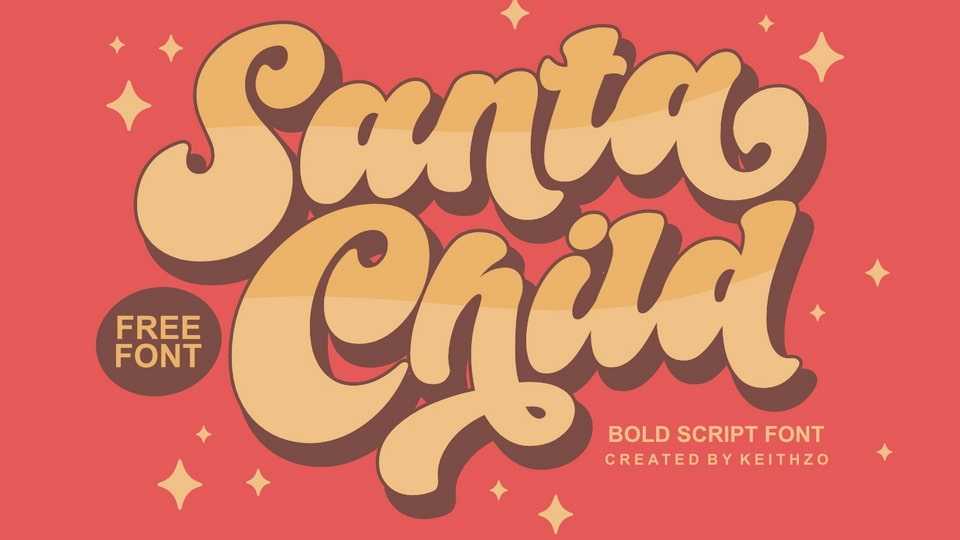
Download Santa Child font, a bold hand-lettered script that effortlessly combines vintage charm with a contemporary flair. Santa Child font is the perfect choice for projects that demand a bold retro vibe, from signage and branding to product packaging and social media graphics.